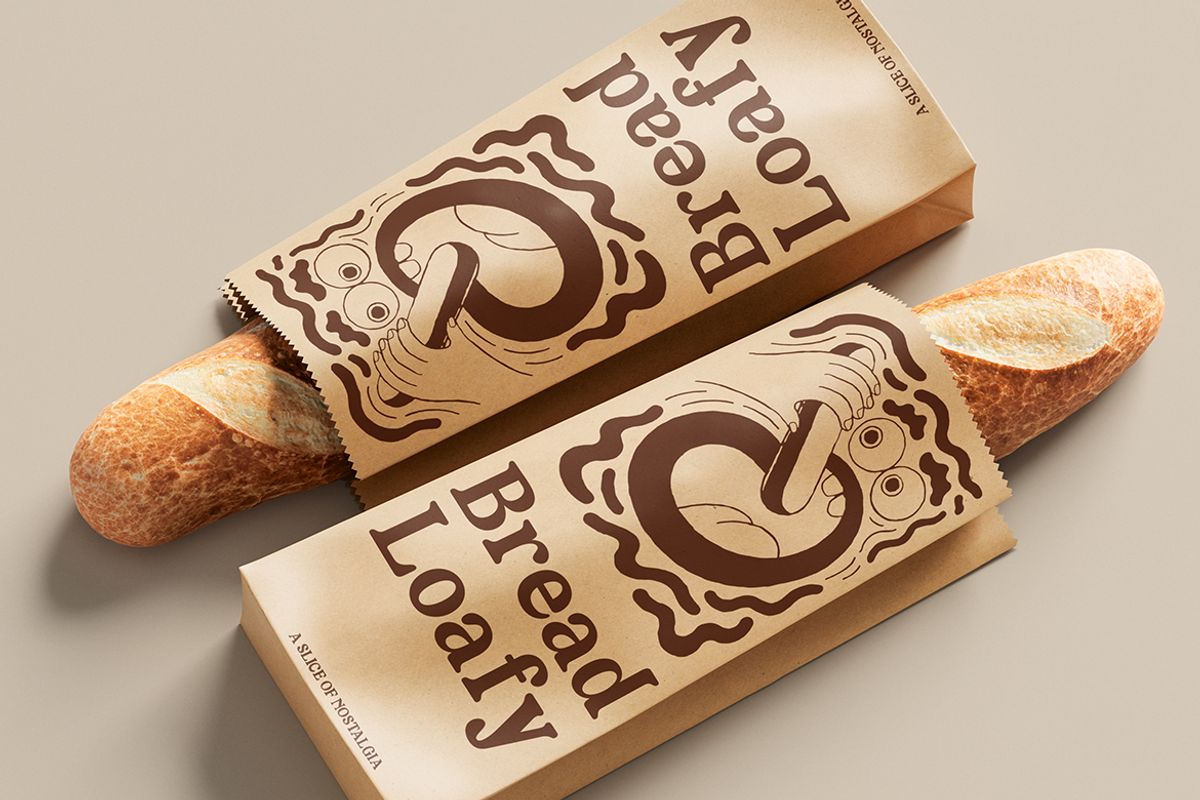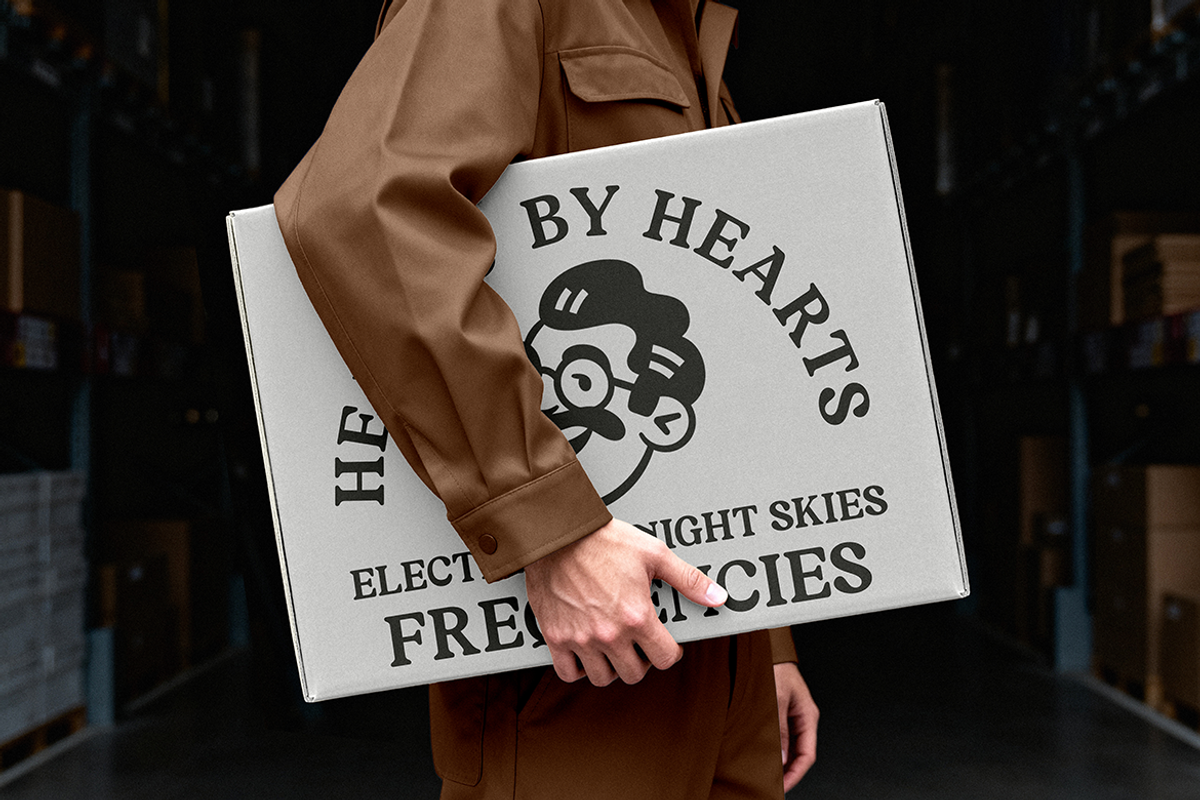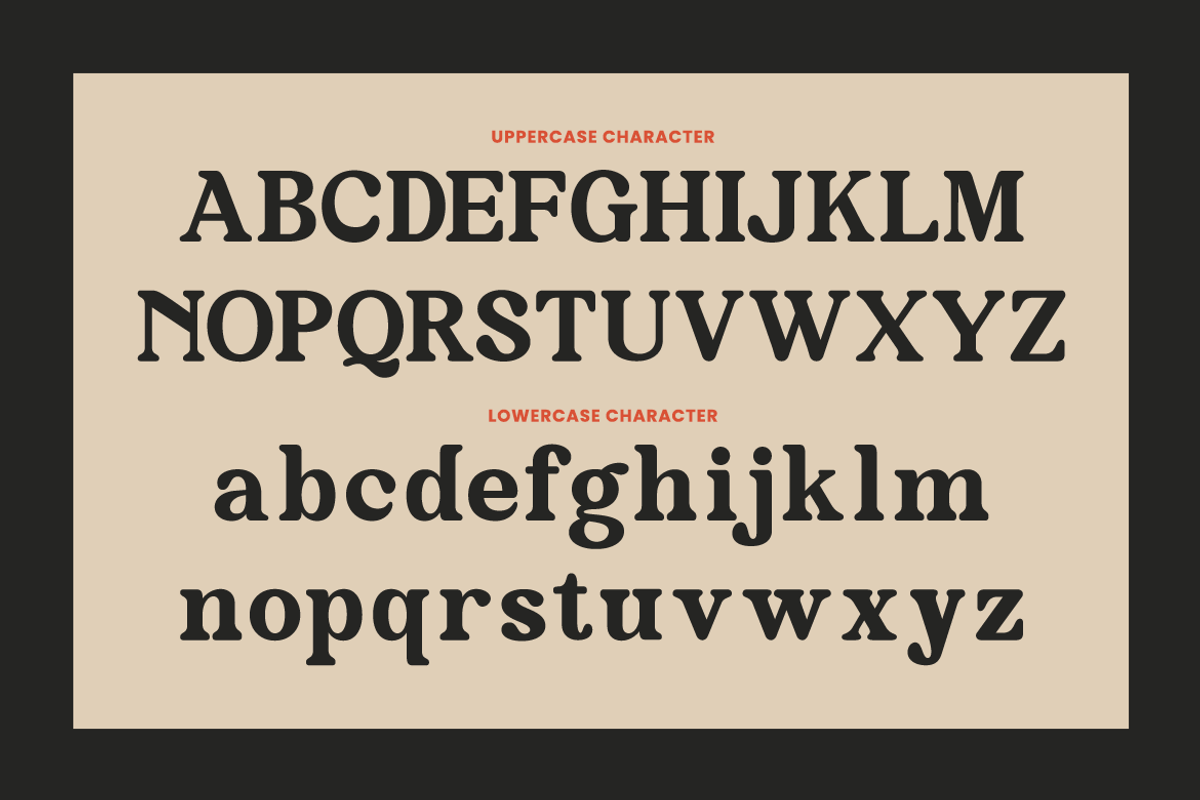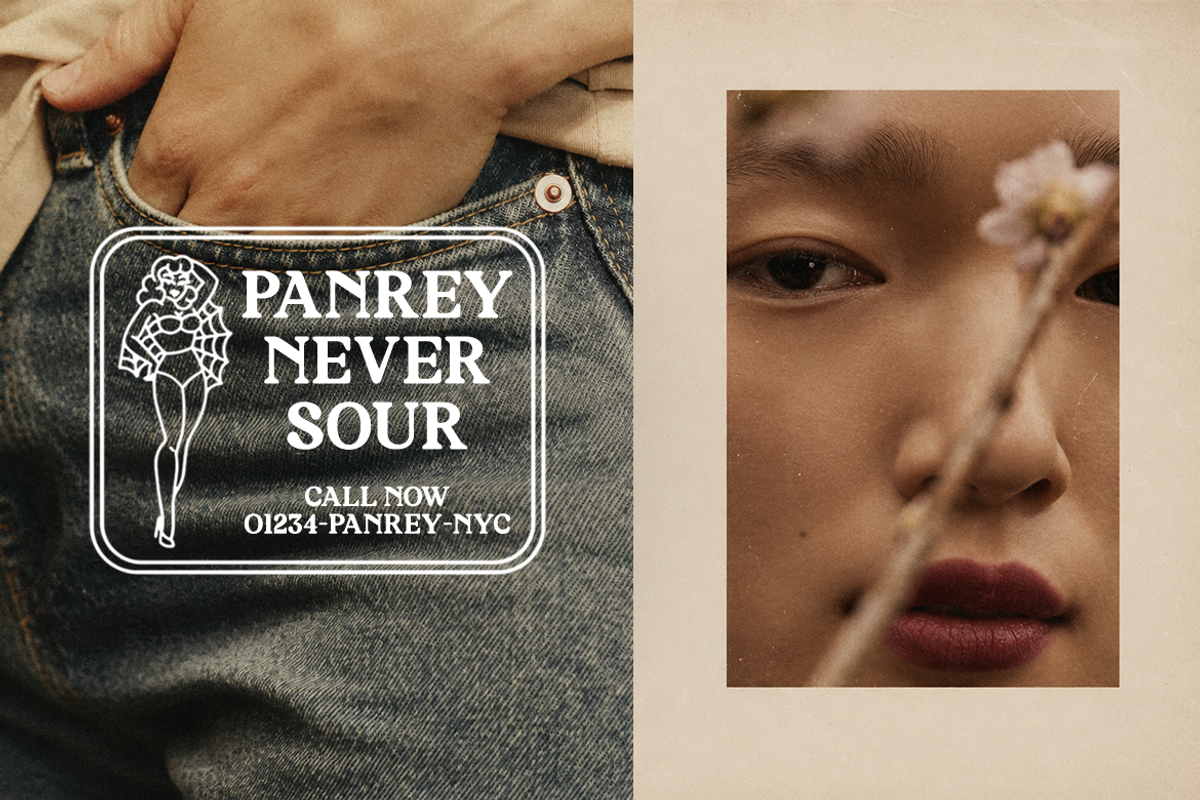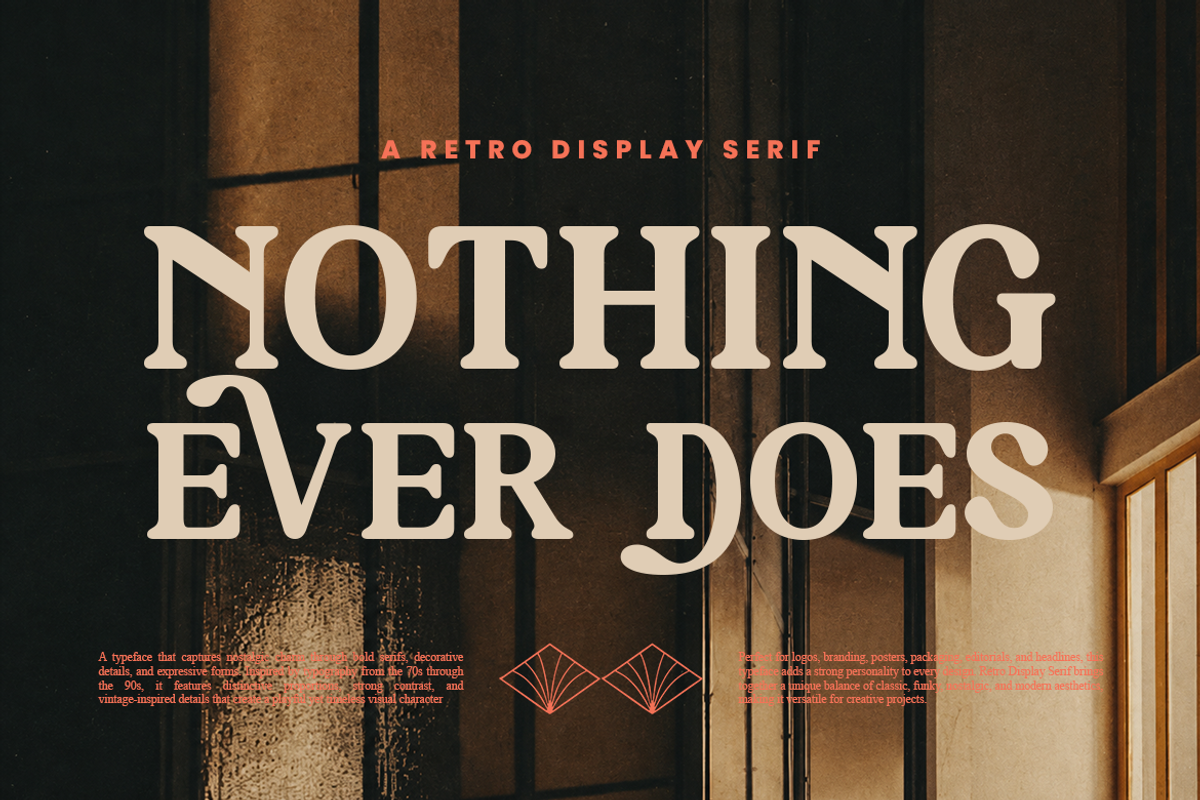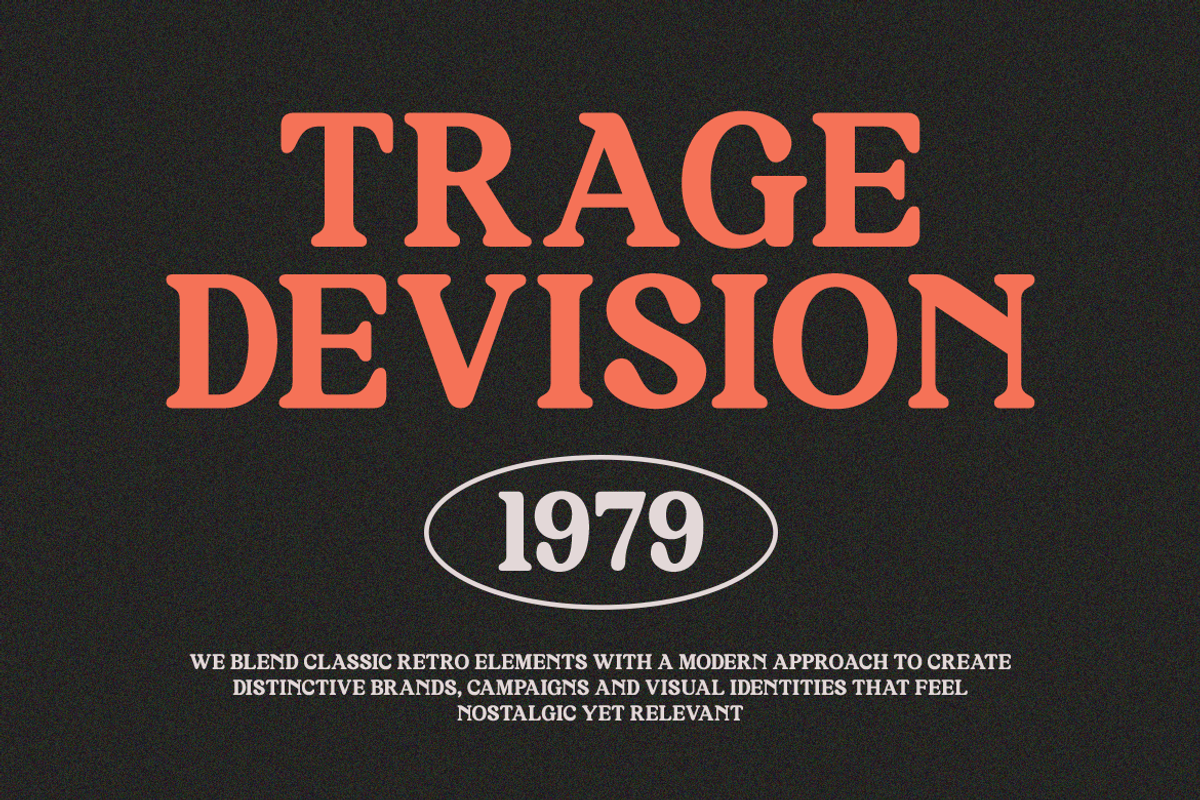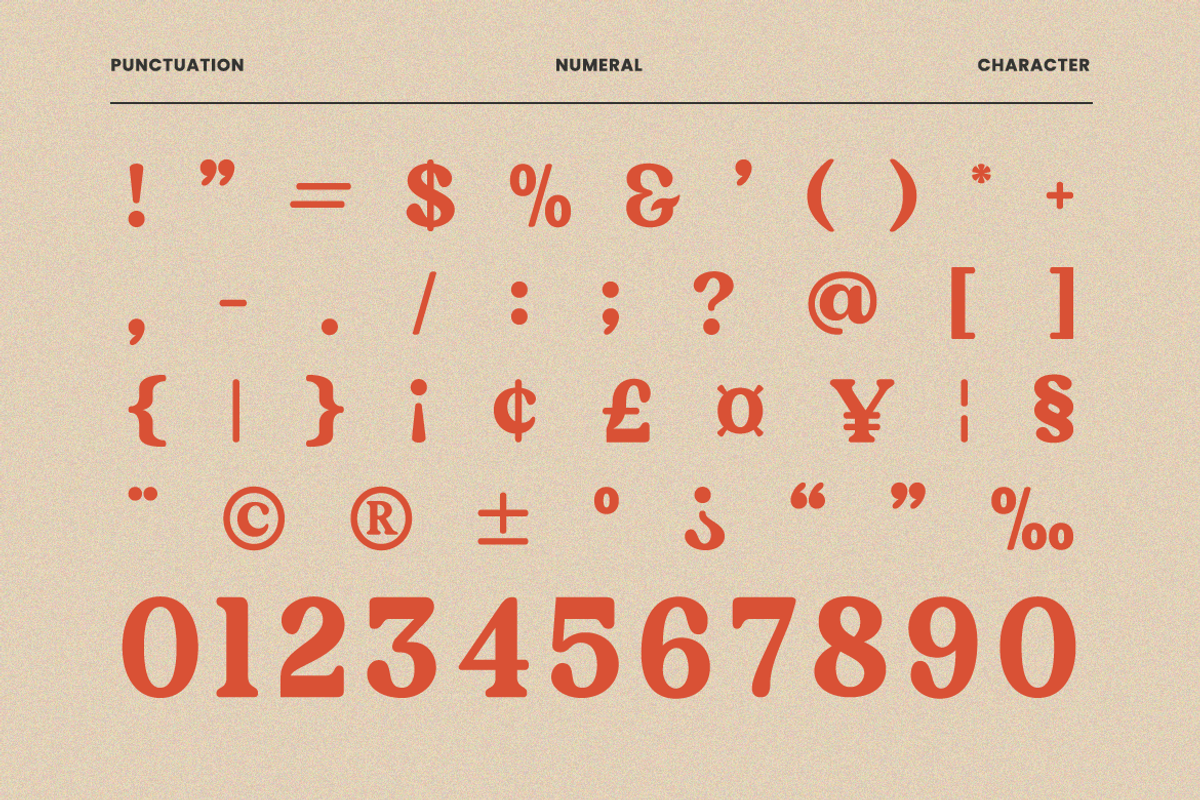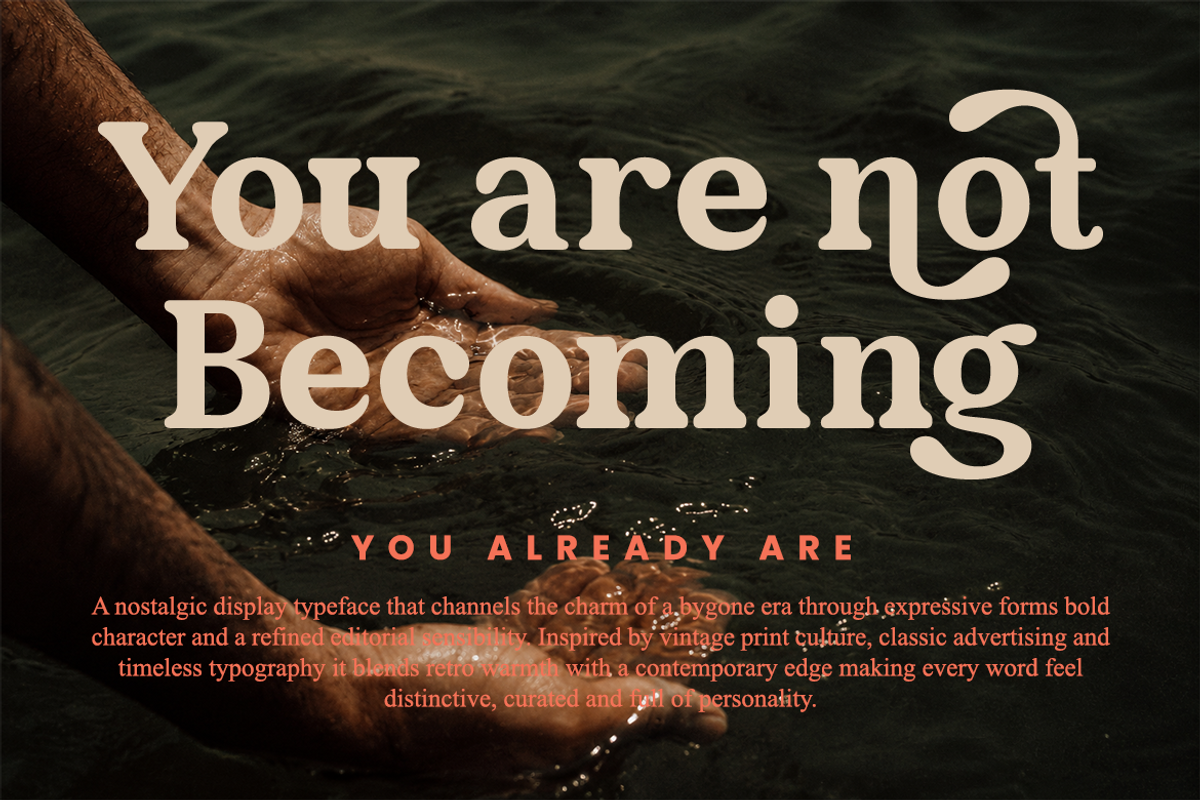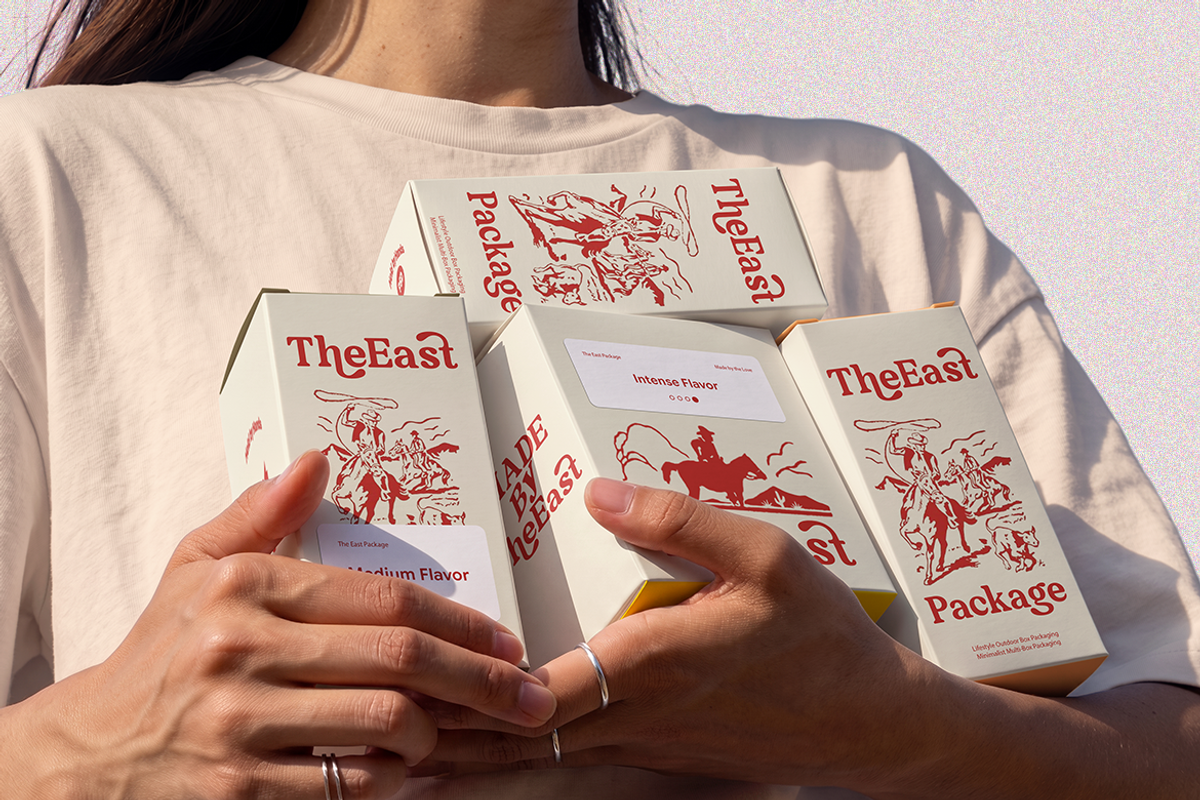
Davenia Retro Display Font
Davenia Retro Display Font is a bold retro display serif font designed to bring a strong sense of nostalgia, elegance, and expressive personality to modern graphic design. Its distinctive letterforms combine classic serif construction with rounded terminals, soft curves, high-contrast details, and dramatic proportions, creating a typeface that feels both vintage and contemporary. The unusual shapes give Davenia a recognizable visual identity, allowing even short words and simple phrases to become strong graphic elements.
Davenia is primarily designed as a display typeface, meaning users can make it the visual centerpiece of their design rather than using it for long paragraphs of text. Davenia is suited for retro branding, logo design, vintage posters, editorial layouts, packaging, fashion graphics, apparel designs, merchandise, magazine headlines, advertising artwork, and nostalgic visual identities requiring an elegant yet bold vintage character. Its bold construction also makes it useful when typography needs to remain visually dominant over photography, textured backgrounds, illustrations, or decorative compositions.
Bold retro serif structure with expressive, oversized proportions
High-contrast strokes combined with chunky, rounded serif details
Distinctive curved terminals and soft letter endings for a nostalgic character
Elegant swash-like flourishes on selected characters add decorative personality
Balanced spacing and sturdy letterforms for impactful display typography at large sizes
Retro branding, logos, and visual identity projects with a nostalgic character
Magazine covers, posters, headlines, and bold editorial layouts
Product packaging, labels, and merchandise with a vintage-inspired look
Album covers, music artwork, and creative advertising campaigns
Social media graphics, promotional banners, and digital content
Supports numerals, punctuation, and extensive symbol set